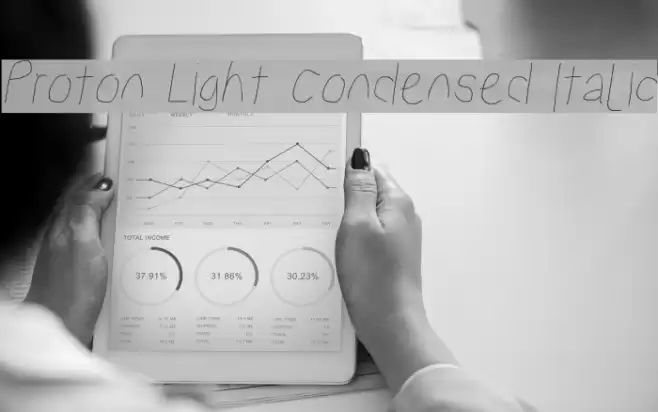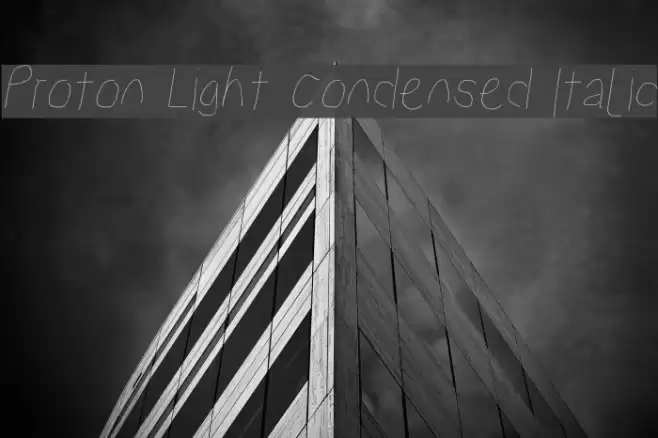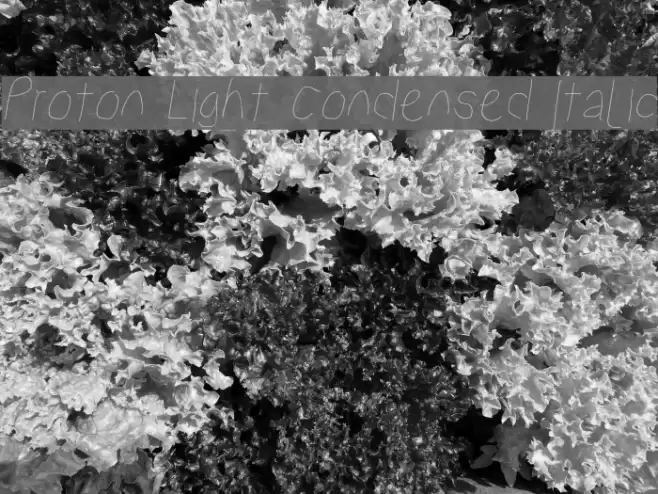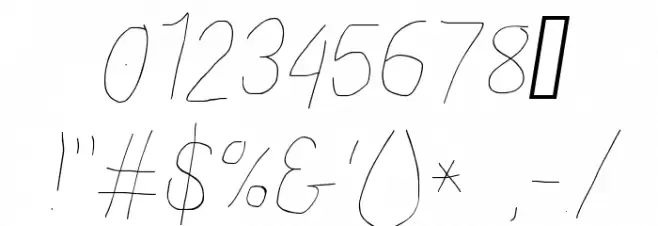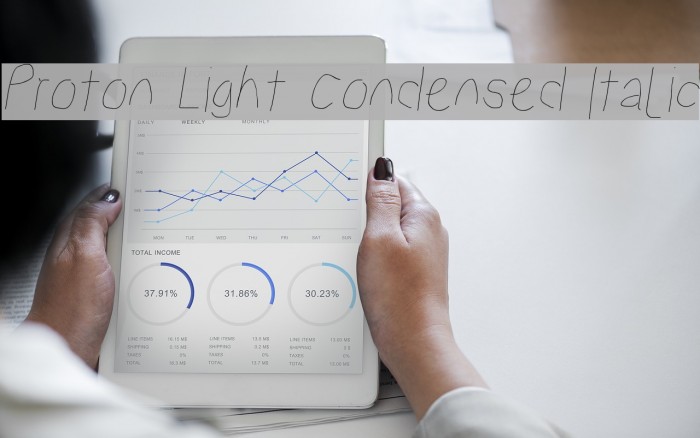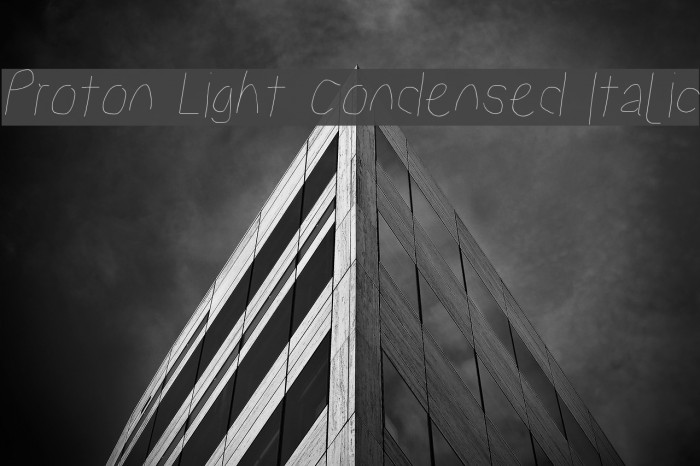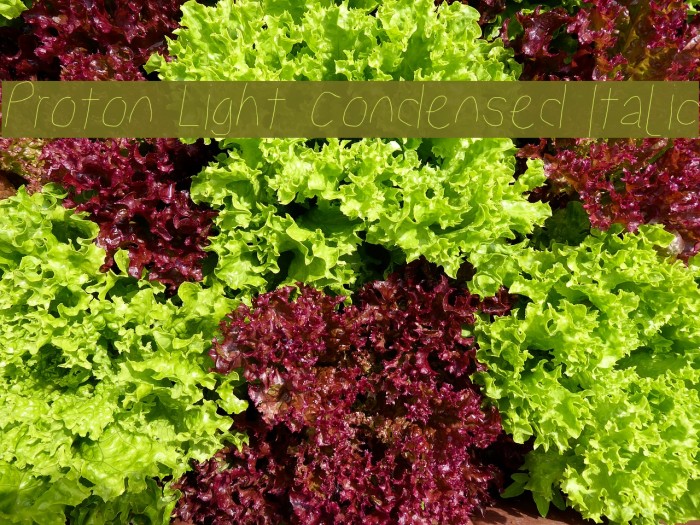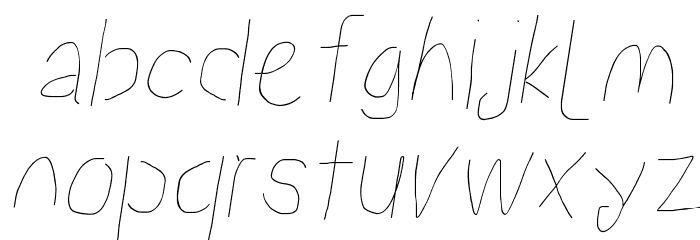
Proton Light Condensed Italic
This font features a light and airy design with a condensed structure, giving it a sleek and modern appearance. The italic style adds a sense of motion and elegance, making it suitable for dynamic and creative projects. The characters are slightly slanted, enhancing the fluidity of the text. The strokes are thin and consistent, providing a clean and minimalistic look. The spacing between characters is tight, which contributes to the compact and efficient use of space. This font is versatile and can be used in various contexts where a contemporary and stylish aesthetic is desired.
A light, condensed italic font with a sleek, modern look.
- Proposed Projects: Ideal for fashion magazines, modern branding, creative posters, and elegant invitations.
- Weight: Light
- Width: Condensed
- Character Spacing: Tight